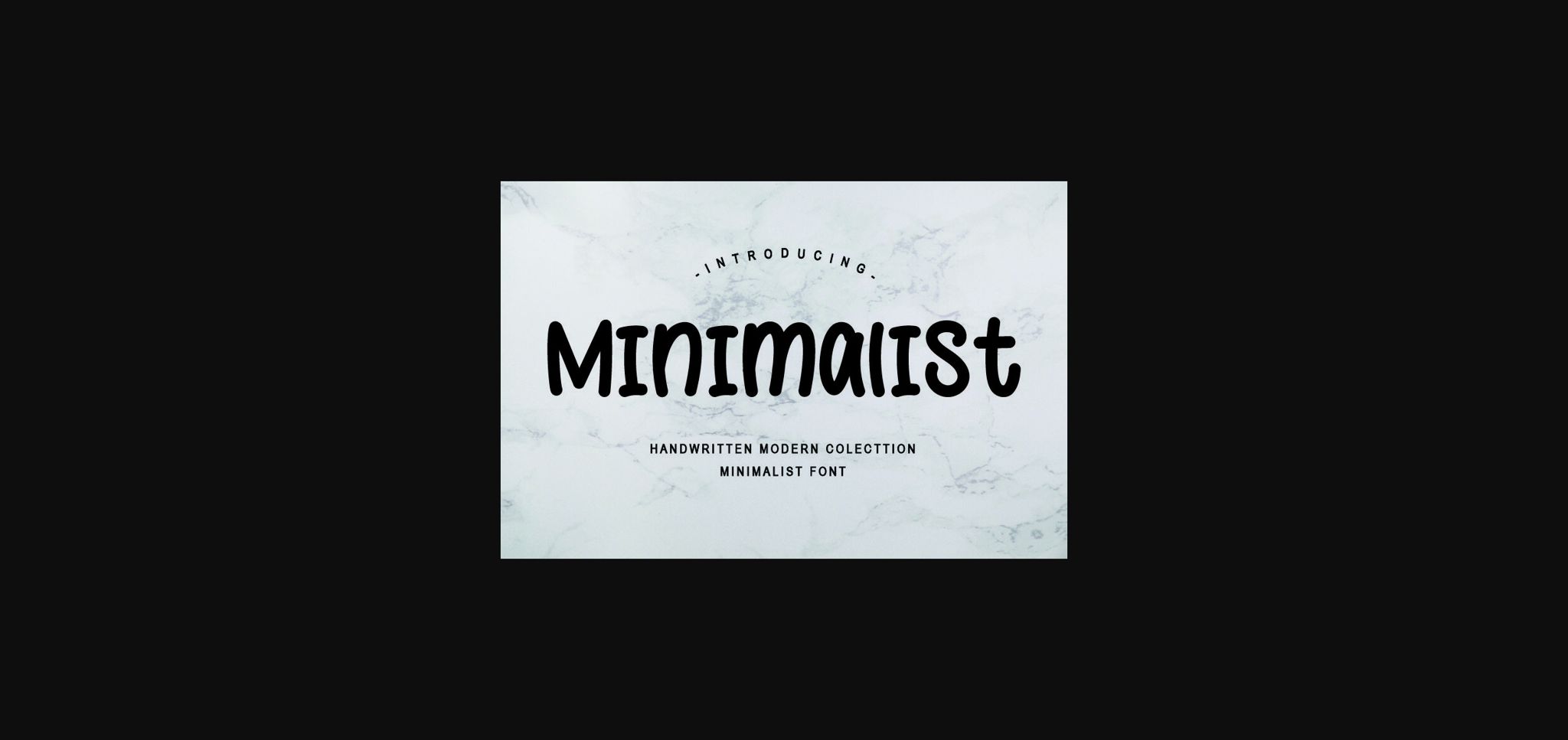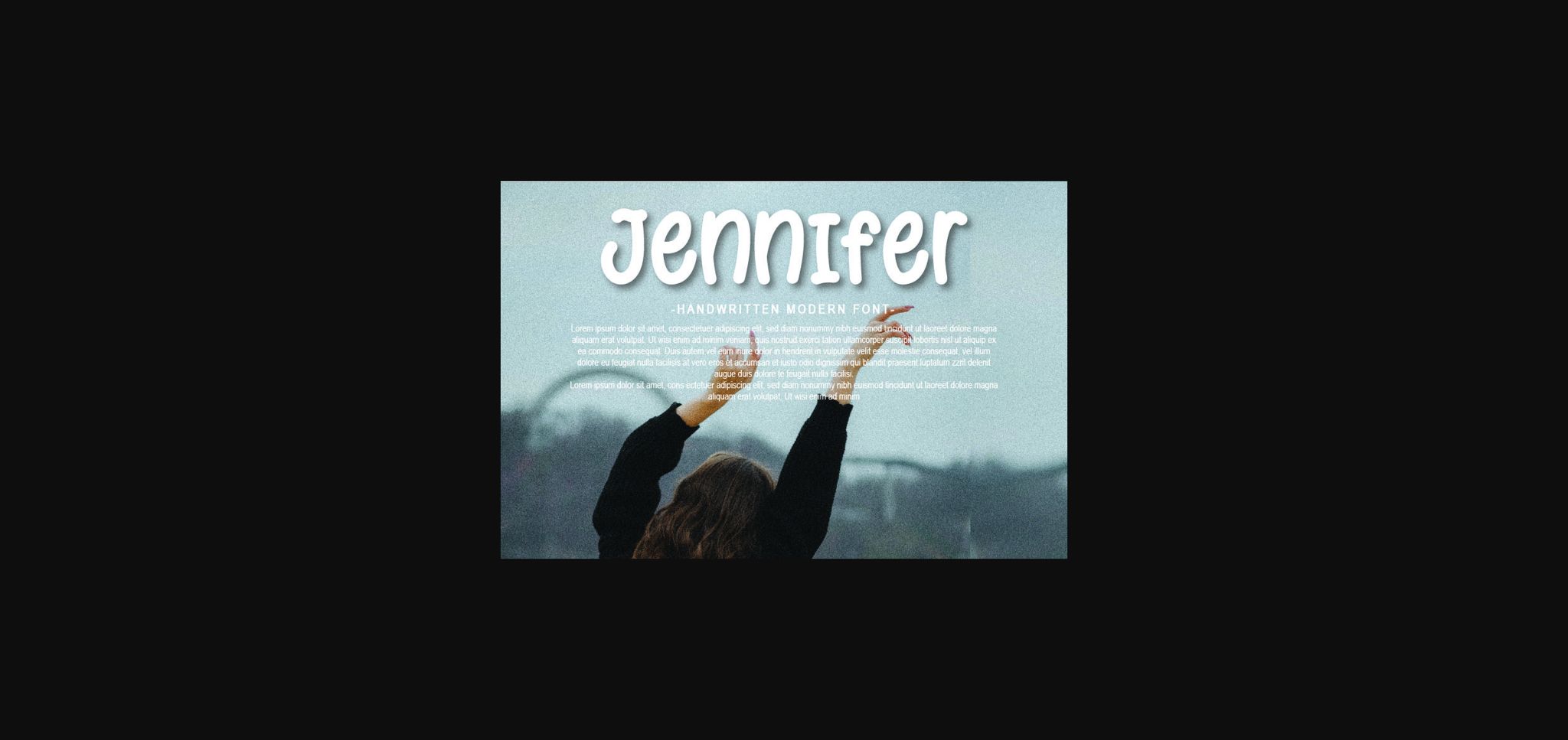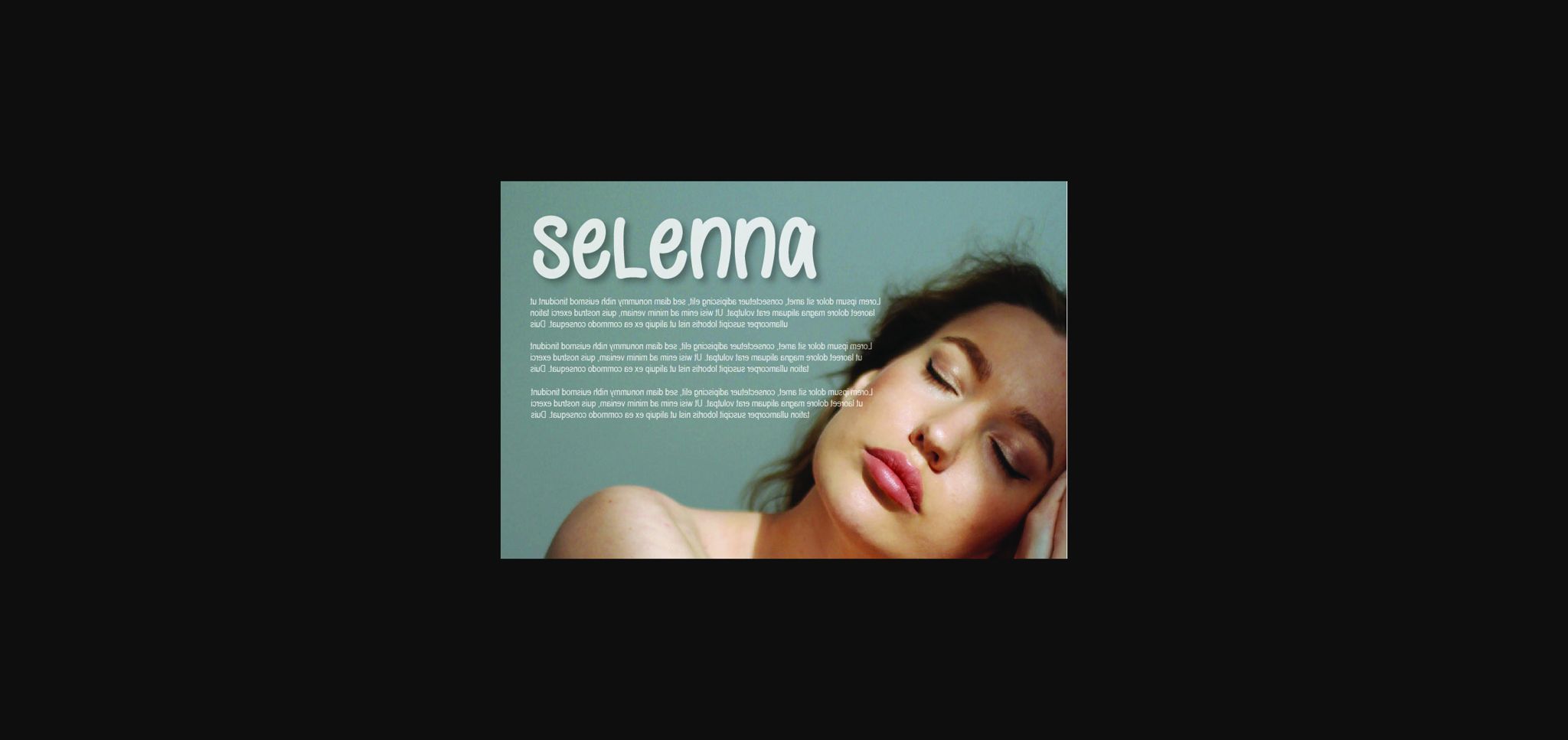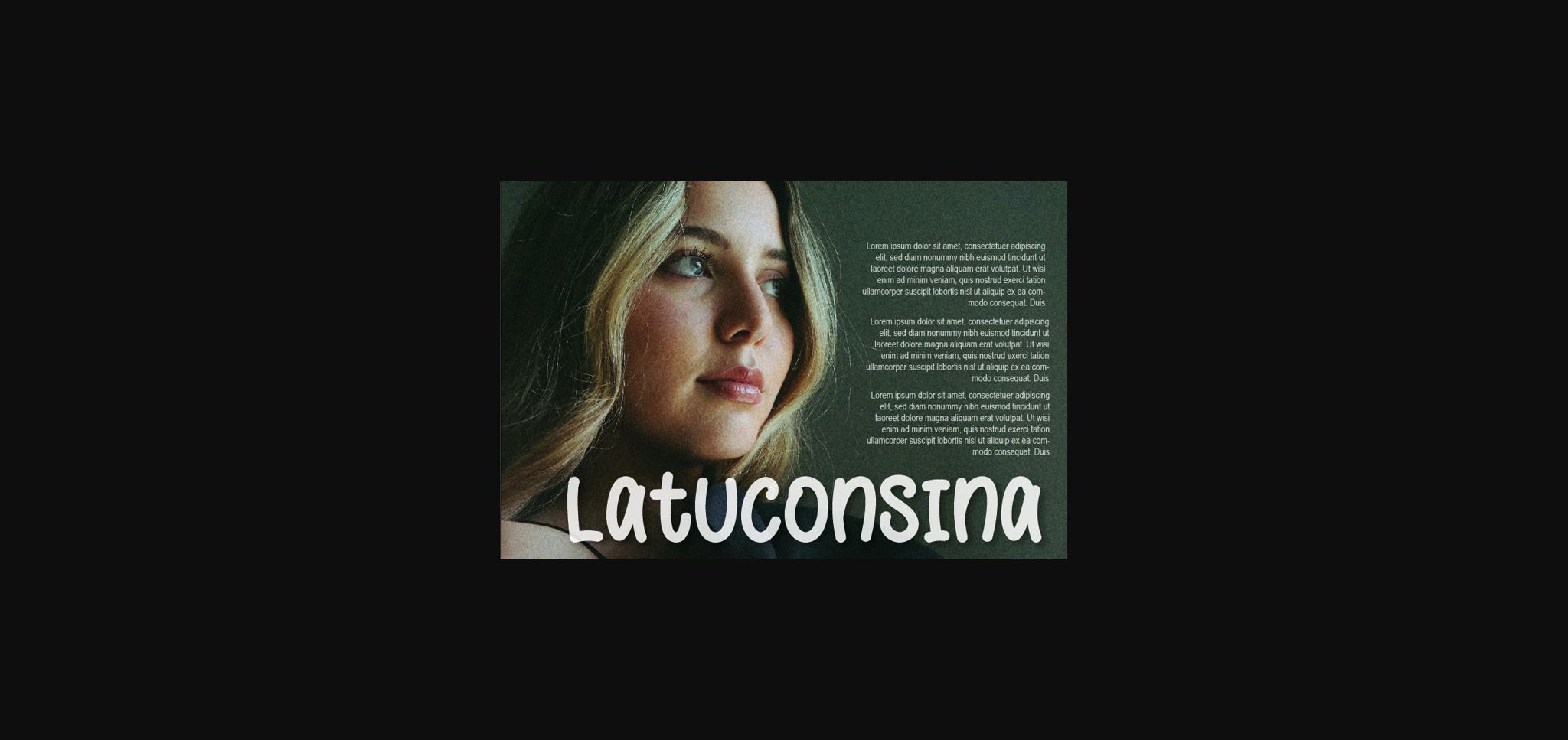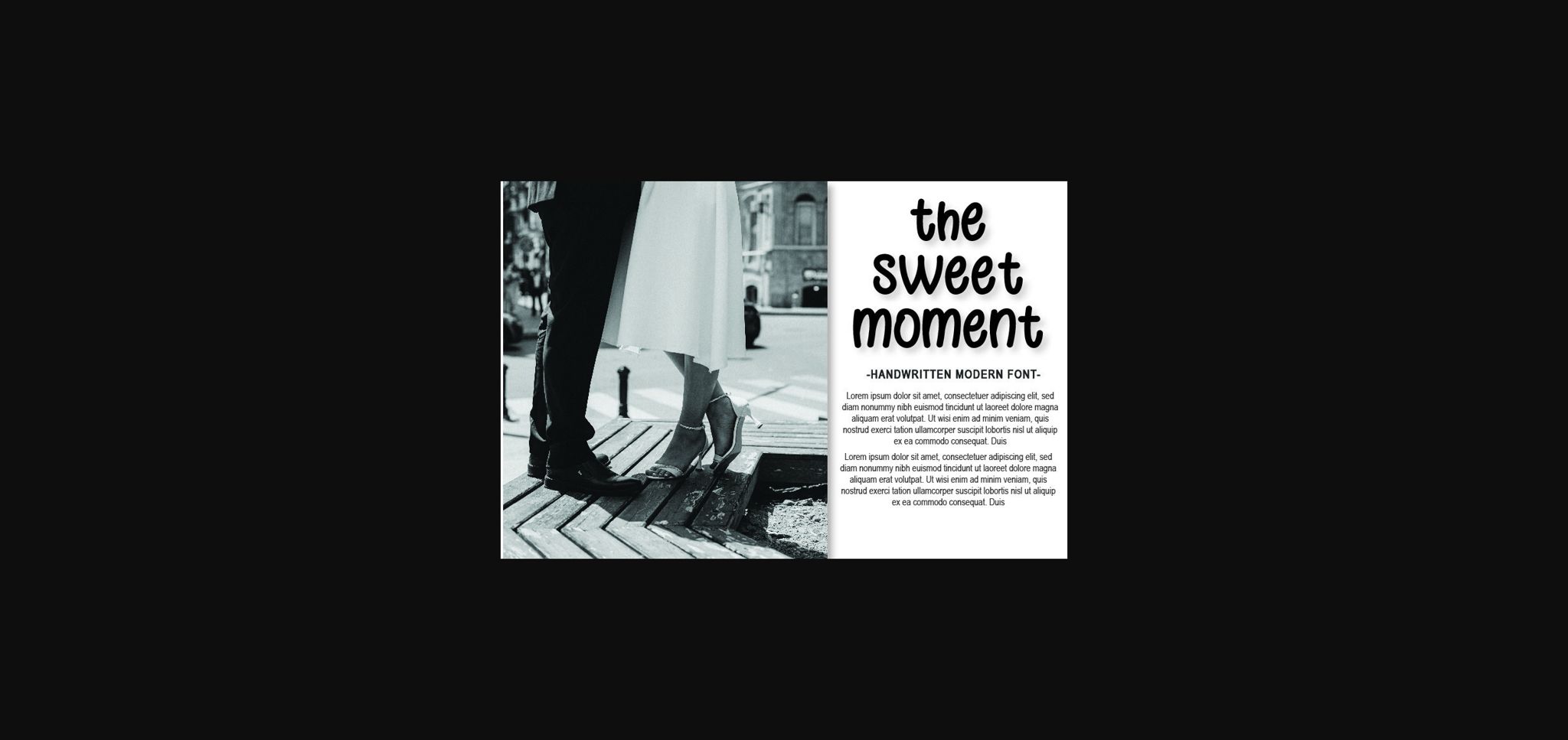
Minimalist font is designed in a simple and elegant sans serif font style. It will be an amazing addition to your fun projects and designs. Use minimalist fonts to add magic to your projects now!